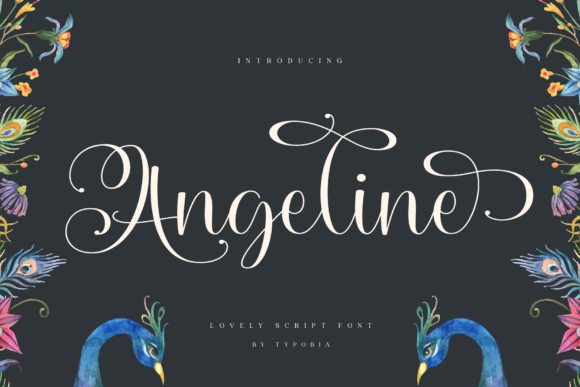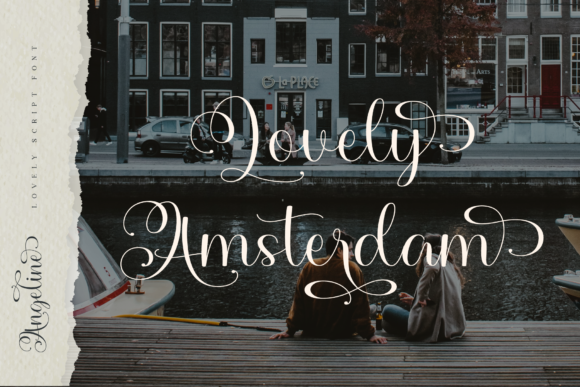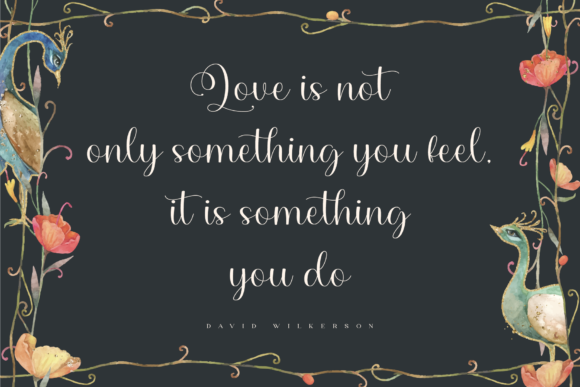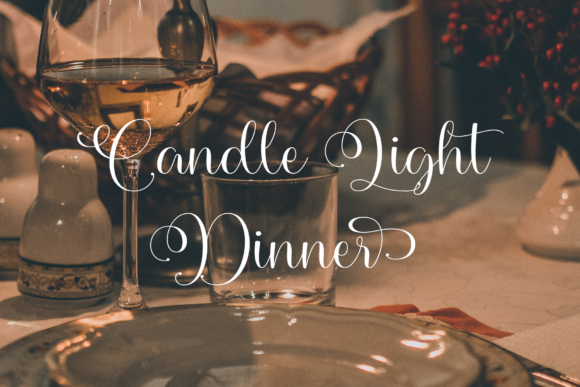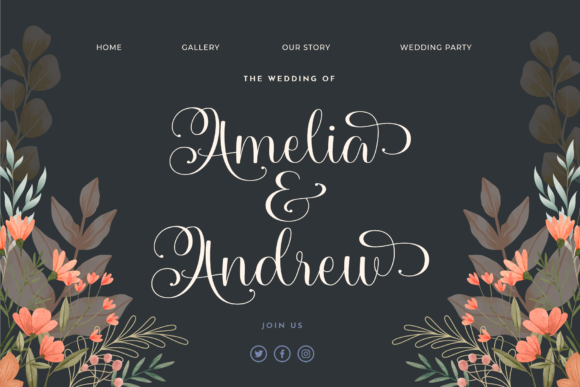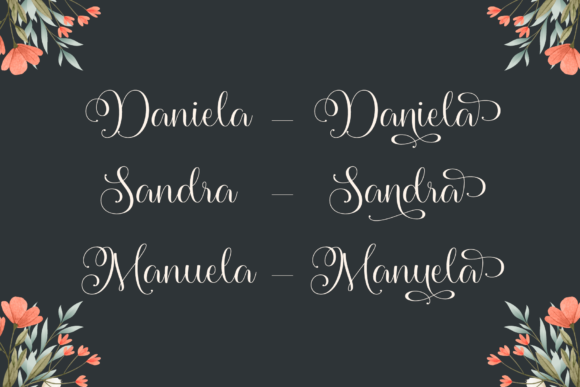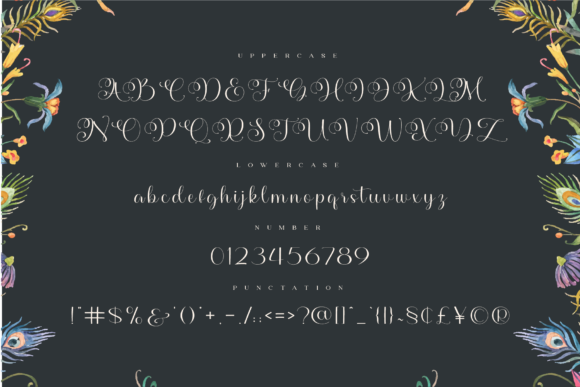
Angeline Font
About Angeline Font
Angeline is a lovely script font that can make any project stand out. Use it for birthday cards, wedding invitations, logos, apparel, and many other industries. This font is PUA encoded, which means you can access all of the glyphs and swashes with ease!